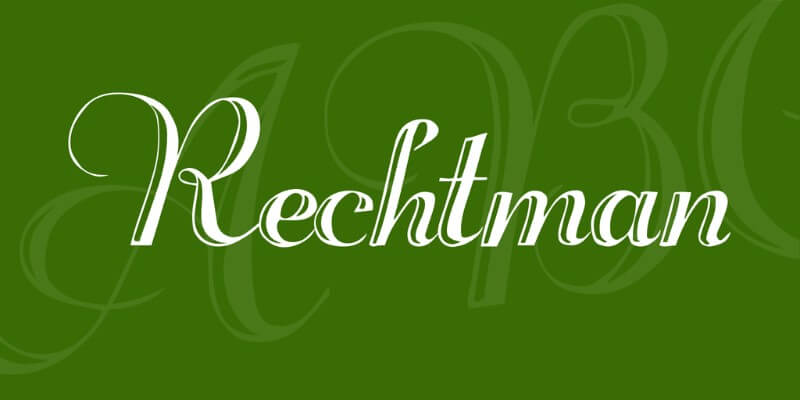
25 Retro Fonts Perfect for Nostalgic Design
From retro logos to letterheads, designs with a nostalgic and vintage vibe are still very popular. If you’re wondering what is a good retro font for your project, we’ve got you covered with 25 amazing typefaces.
Serif fonts
Nothing screams retro as serif fonts do.
They are, after all, an old style of typography that made it even in the digital era. Serif fonts are characterized by extra strokes at the ends of the letters’ swashes and improve legibility (as well as looking fabulous!). Here are some of the best vintage-looking ones.
1. Roca (purchase only)
This elegant and timeless font comes in Latin and Cyrillic, as well as two different styles and six weights. You can experiment with different swashes and ligatures. Some specific letters have slanted legs, which also add to the retro-looking vibe. Roca makes a great font for logo design, letterheads, and even body text.
2. It’s a Kind of Magic (free)
What a suitable name for such a cute and playful font! This typeface is inspired by the 70s, the color explosions of the Flower Power movement, as well as the groovy designs that came with that time.
It’s a Kind of Magic is a layer type font and a reinterpretation of the freehand typography made at that time. It is meant to be a display font but goes well for other personal and commercial projects too.
3. Ephemera Fascia (purchase only)
If you want an old-school retro font, with a serious throwback to 19th-century building facades and railway signage, we got you. Ephemera Fascia comes in five different styles in all uppercase lettering. It is great to use for headings, logotypes, badges, packaging, etc.
4. Stranger Font Collection (purchase only)
Not a font, not a font family, but a collection of 11 different eye-catching typefaces. Stranger Font Collection is definitely worth your money (licenses start at just $15), since you can experiment a lot with these American vintage fonts, inspired by old denim labels, jeans ads, the old West and apothecary elements.
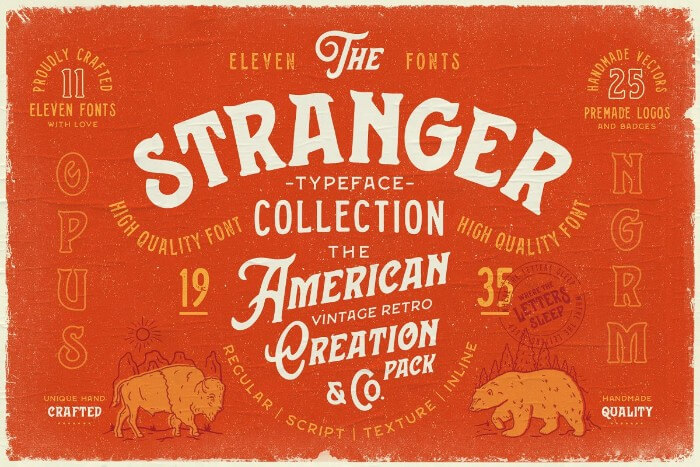
5. Black Drama (free)
Black Drama is a tasteful and ornamental free retro font. It consists of two display serif fonts in two styles. Apart from that, it comes with alternate characters, ligatures and vintage style decorative frames and floral elements. It would make for a perfect beer logo font, or retro signage.
6. Killarney (purchase only)
Killarney is a bold and heavy serif typeface inspired by vintage letterforms in old ads. It possesses clean lines and sharp edges, juxtaposed with elegant curves and ligatures. It also has a slanted version and is best used for logos, headlines, packaging and label designs.
7. Magic Retro
Magic Retro is a highly decorative retro aesthetic font with 25+ ligatures and 80+ alternates in lowercase and uppercase. If you’re looking for a cool sticker font, this one is a timeless choice.
Sans serif fonts
Sans serif fonts are cleaner and have no additional strokes at the endings of letters. But the lack of additional ornaments doesn’t mean these can’t make great old-school retro fonts. A lot of font styles from the 20th century are in fact sans serifs. So, here are some of the options for you to explore.
8. Bros Rover (free for personal use)
This sans serif font with luxurious ligatures will be a great addition to a logo, heading, packaging design, or a letterhead. The gentle swashes and wide circular movements give it a sense of grace and class, but it’s still compact and more condensed than many typefaces with long ligatures. It also has a noir-like appearance, for extra flair.
9. Market Deco (free)
This Art Deco-inspired vintage font is the epitome of “less is more”—it’s clean, simple and evergreen. If you want simplicity that is also reminiscent of a nostalgic, 18th-century aesthetic or are making an Art Deco logo, this is the font for you.
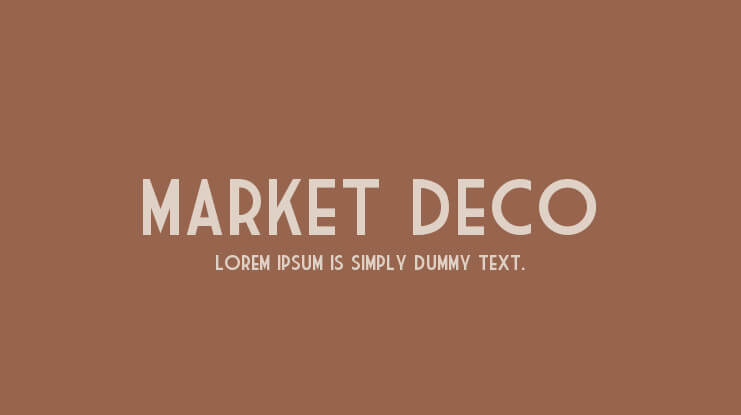
10. Gin and Soda (free for personal use)
Yet another display typeface on this list, Gin and Soda looks like it should be embossed on the packaging of whiskey. To me, it’s reminiscent of a “Peaky Blinders” aesthetic and definitely gives a strong 1920s vibe.
11. Franks (free)
This free retro font by designer Philippe Moesch is slender and simple, based on circular shapes and a minimalistic style. Since its look is very light and adaptable, you can experiment with bolder colors and shapes in your design, without oversaturating the overall creation too much.
12. Geomancy (free for personal use)
If you want a bulky and bold typeface that will surely attract attention, Geomancy fits that criteria. Retro, as it seems, is a term hard to define. It can mean “looking like it’s from two centuries ago”, but it can also remind us of the 90s and the ads and packaging of those days. It could also make a cool travel font for a channel about city escapes.